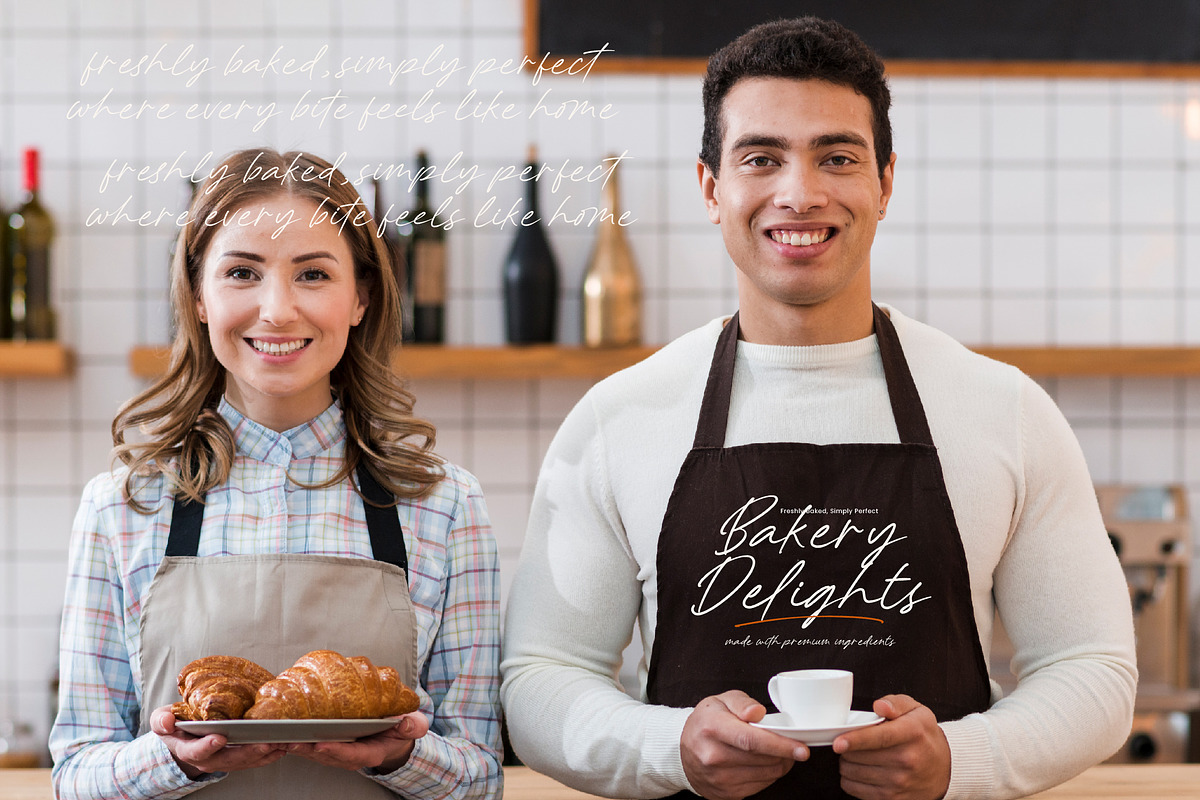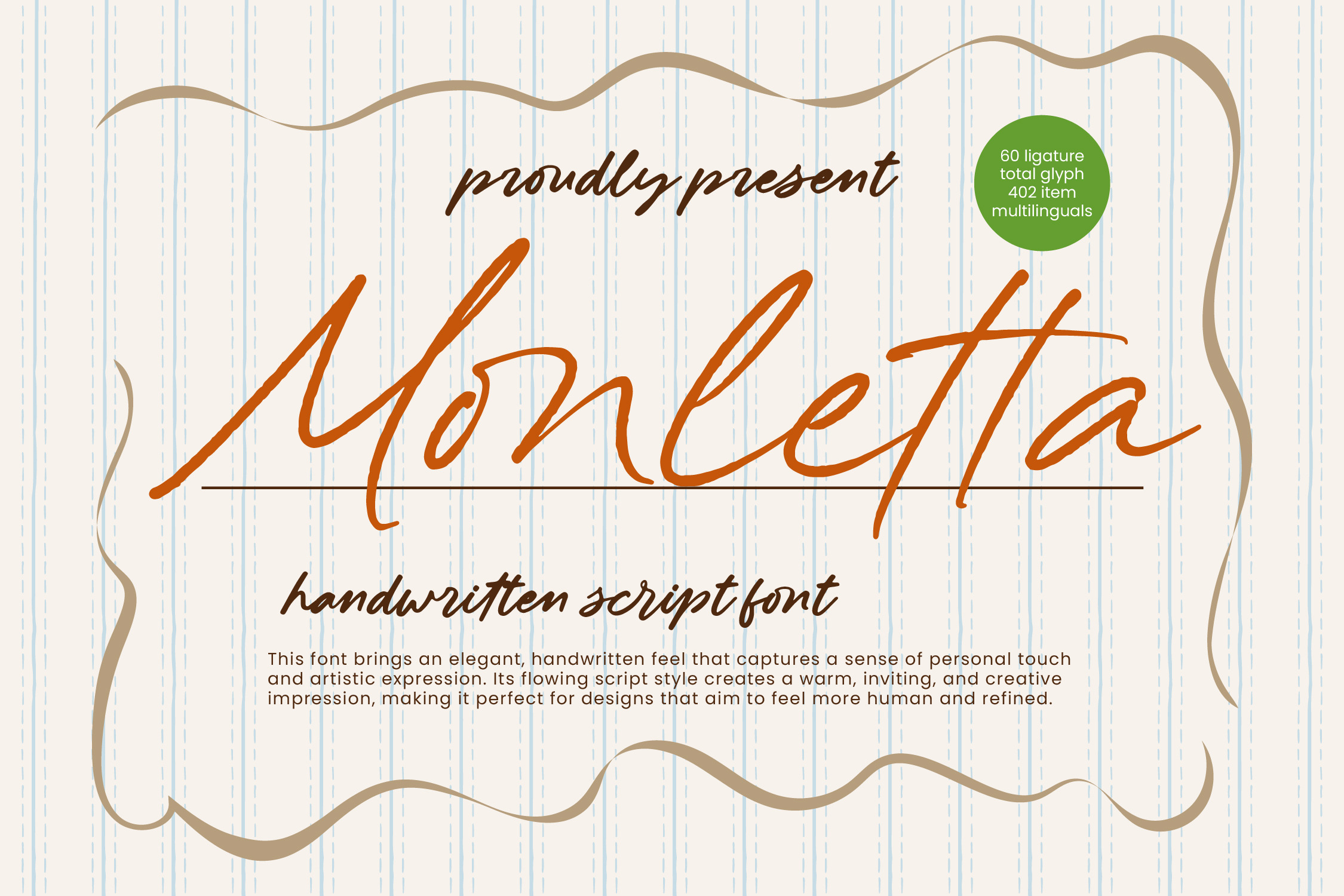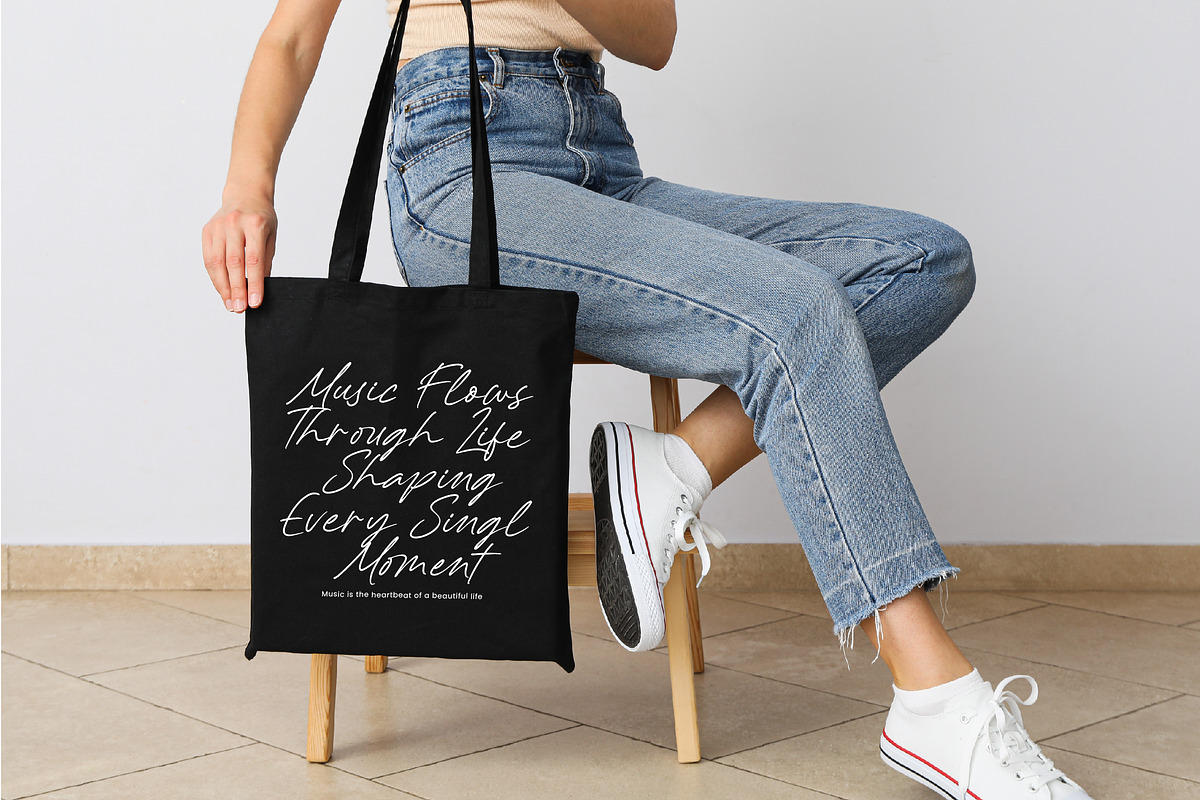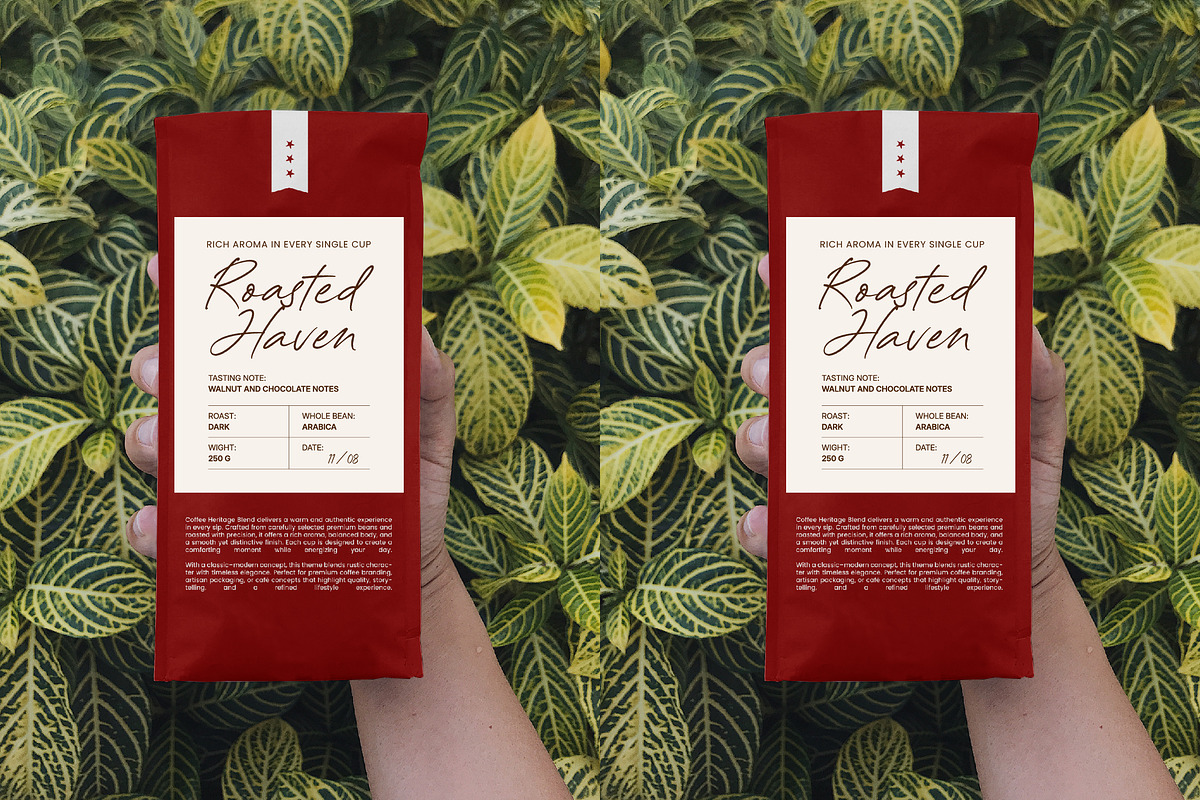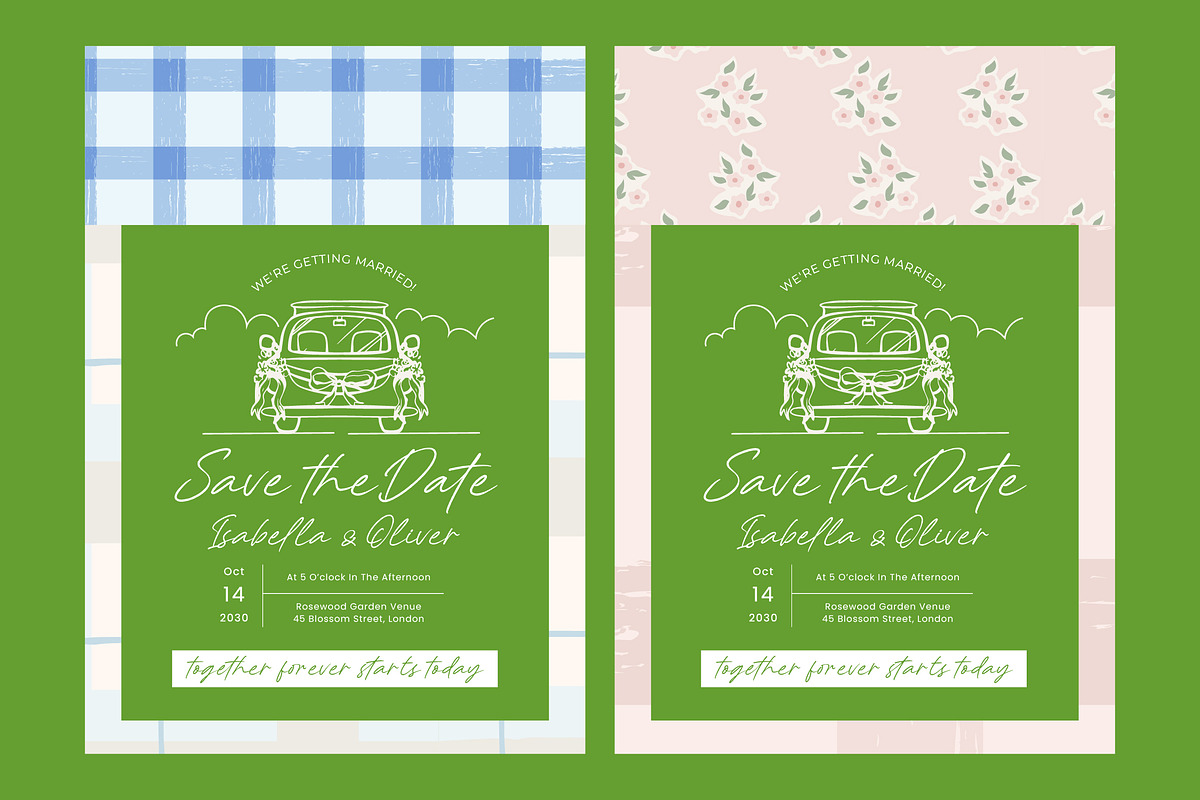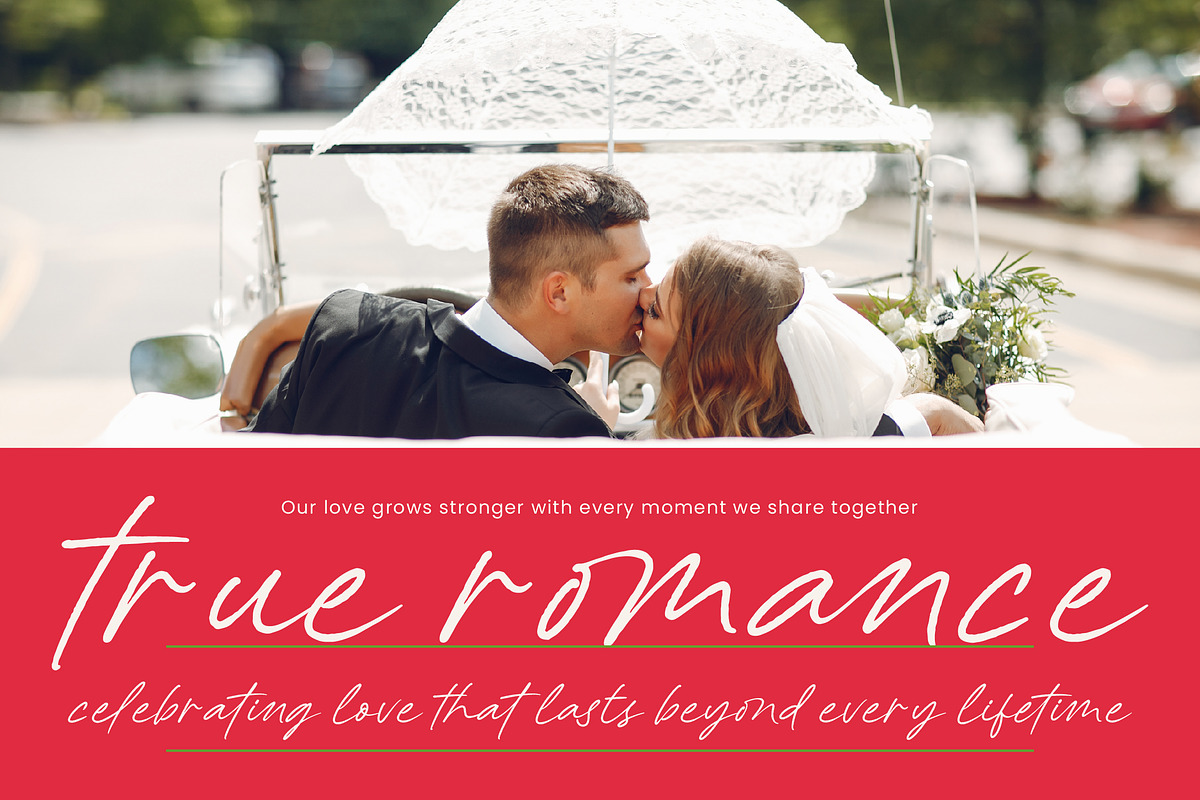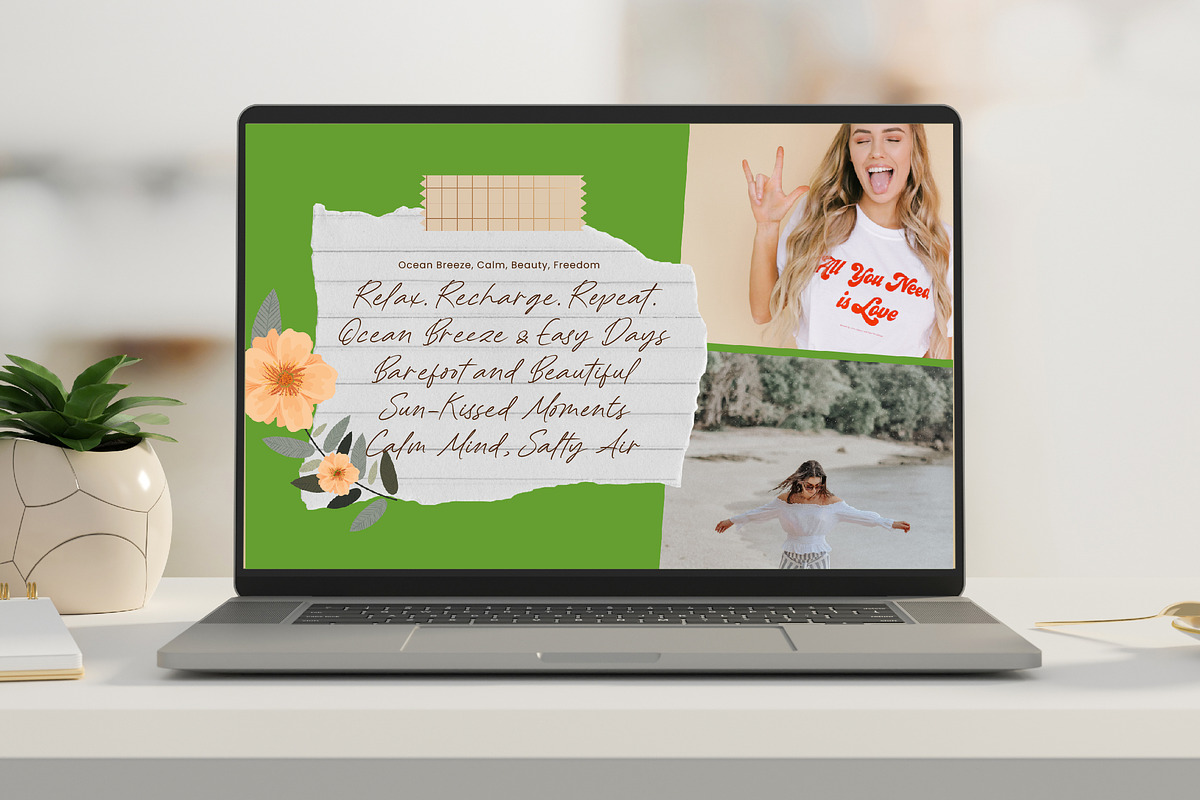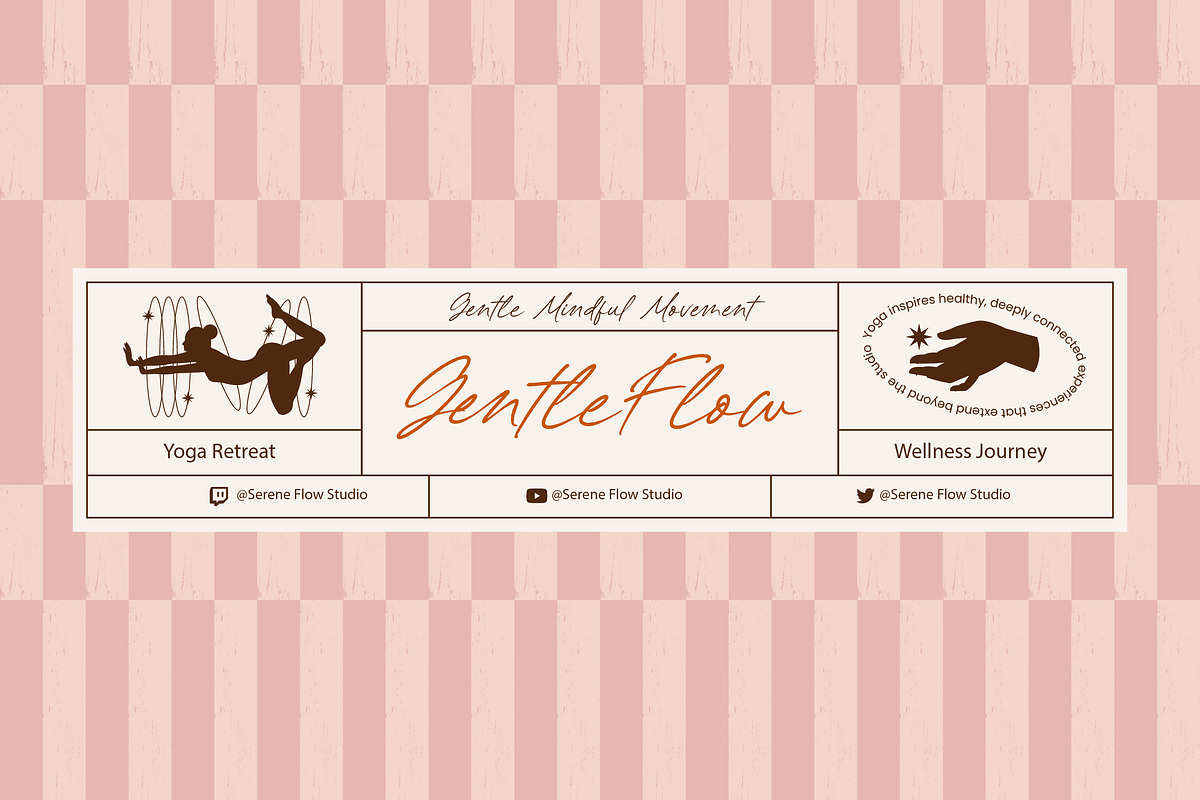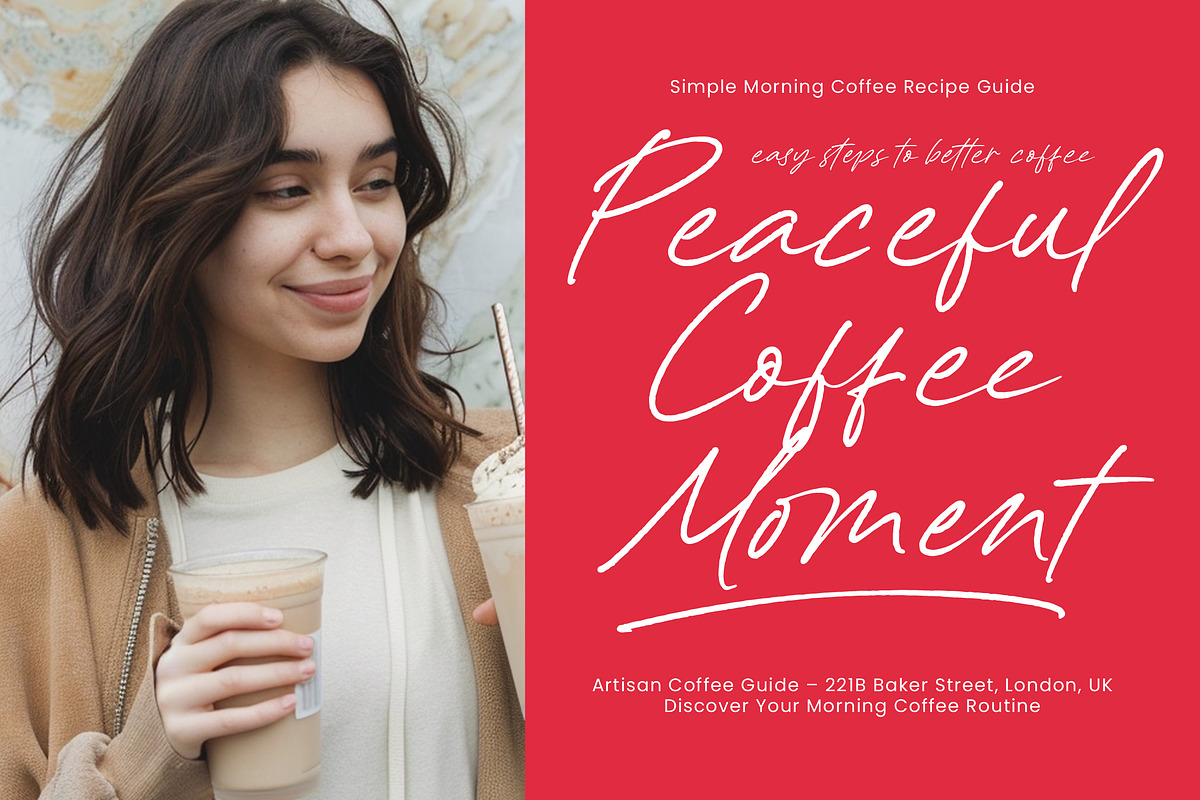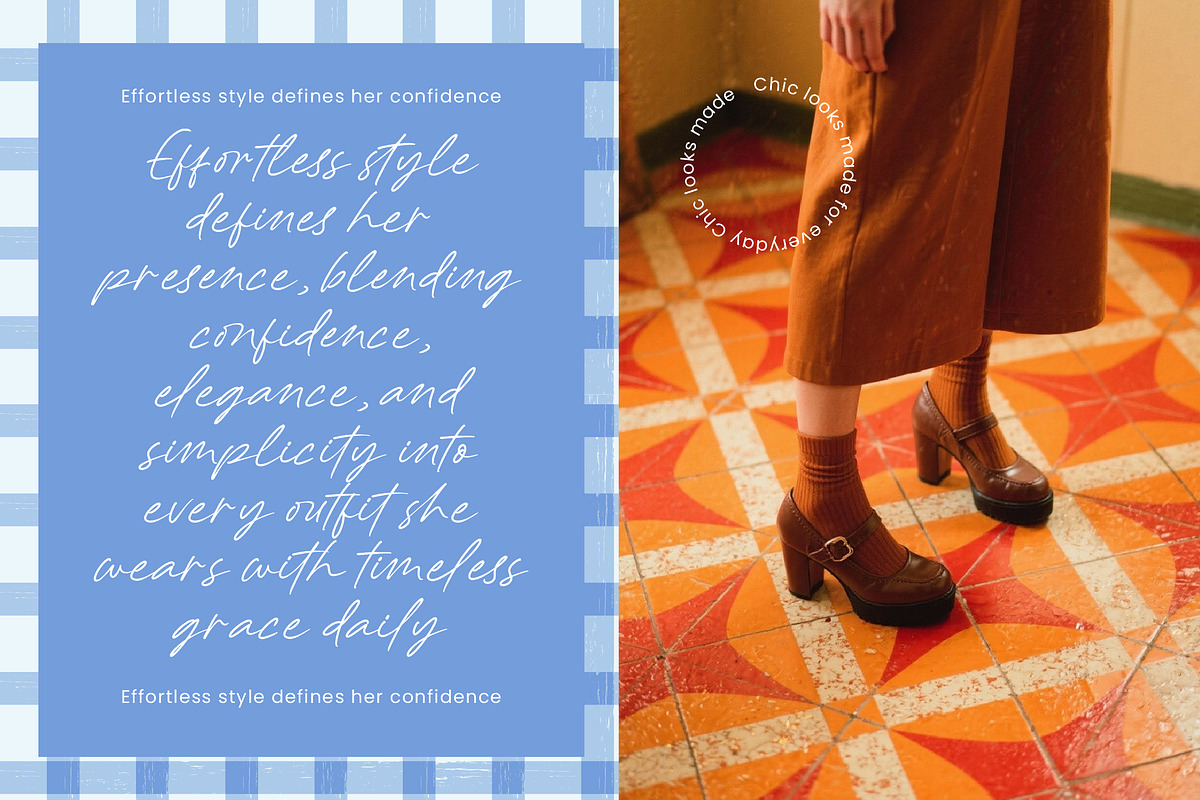
Monletta Handwritten Script Font
Monletta - Handwritten Script Font , Elevate your design projects with the timeless elegance of a signature touch that resonates with authenticity and style. Monletta - Handwritten Script Font is a masterfully crafted typeface that captures a sense of artistic expression and personal connection. Its fluid strokes and elegant flow create a warm, inviting atmosphere, making it the perfect typographic choice for projects that require a refined, human-centric aesthetic and a premium finish.
Experience unparalleled versatility with a technical framework designed to meet the highest industry standards for modern communication. With its extensive multilingual support, Monletta - Handwritten Script Font adapts seamlessly across global markets, making it incredibly versatile for international projects. Featuring 60 ligatures and a comprehensive set of 402 glyphs, this font ensures that every word maintains a natural, bespoke appearance that is both professional and sophisticated.
Transform your brand identity with a visual language specifically engineered for luxury branding, premium packaging, and high-end editorial design. Monletta - Handwritten Script Font is perfect for creating exclusive logo designs, sophisticated social media graphics, and elegant wedding invitations. Its refined character excels in environments where visual storytelling and brand prestige are paramount, providing a distinctive edge for any creative professional.
Invest in a powerful creative asset that enhances your marketing collateral with undeniable charm and commercial polish. By integrating Monletta - Handwritten Script Font into your design toolkit, you are choosing a commercially-focused solution that drives engagement and communicates quality craftsmanship. This high-contrast script is the ultimate tool for designers seeking to deliver a bold visual impact while maintaining an air of graceful sophistication across all platforms.